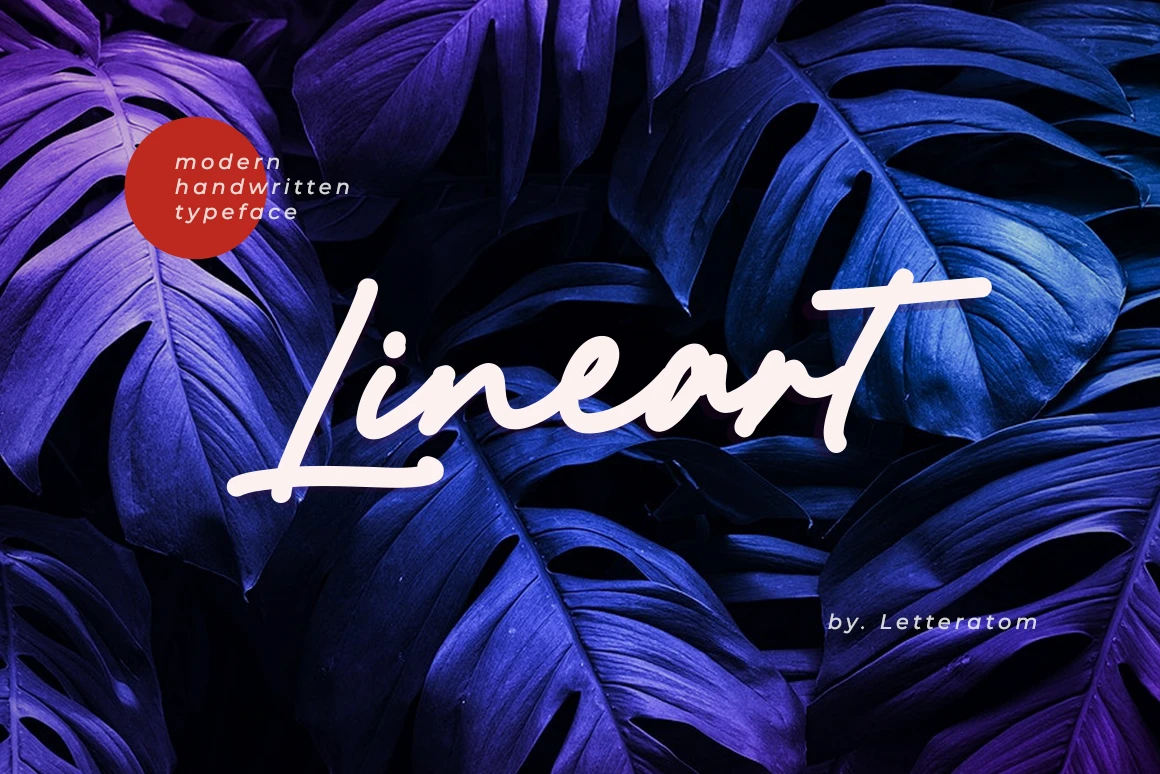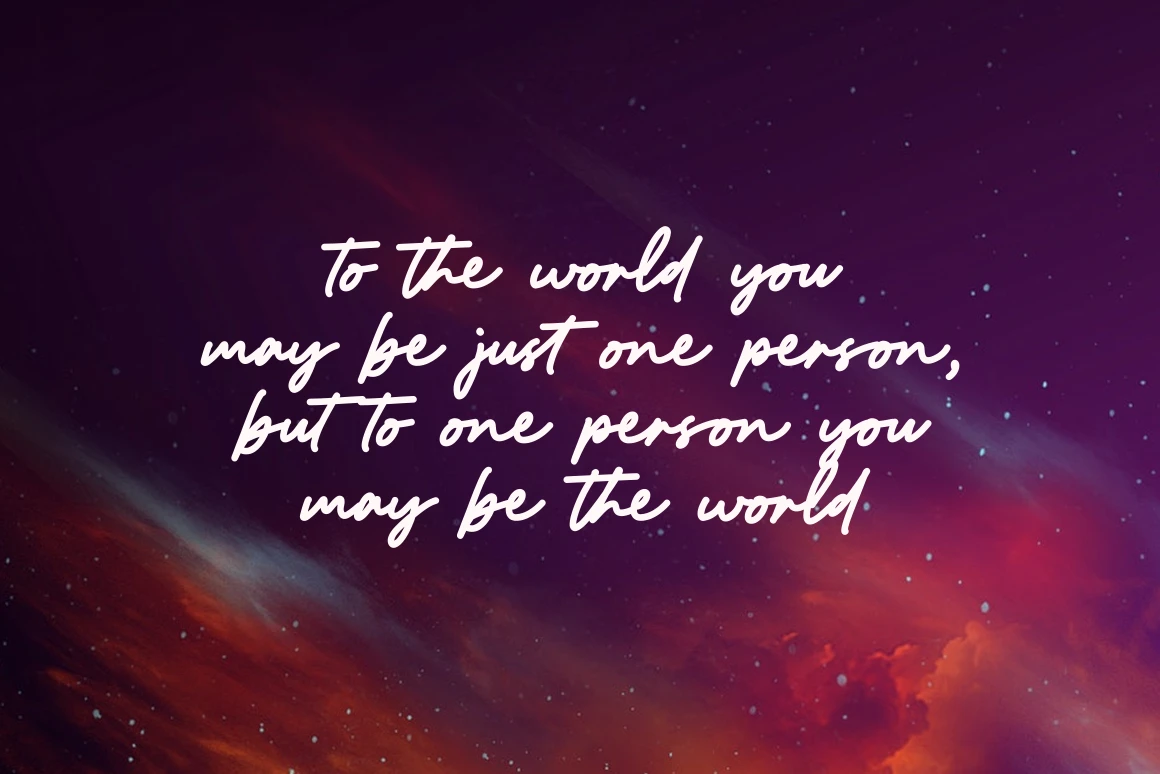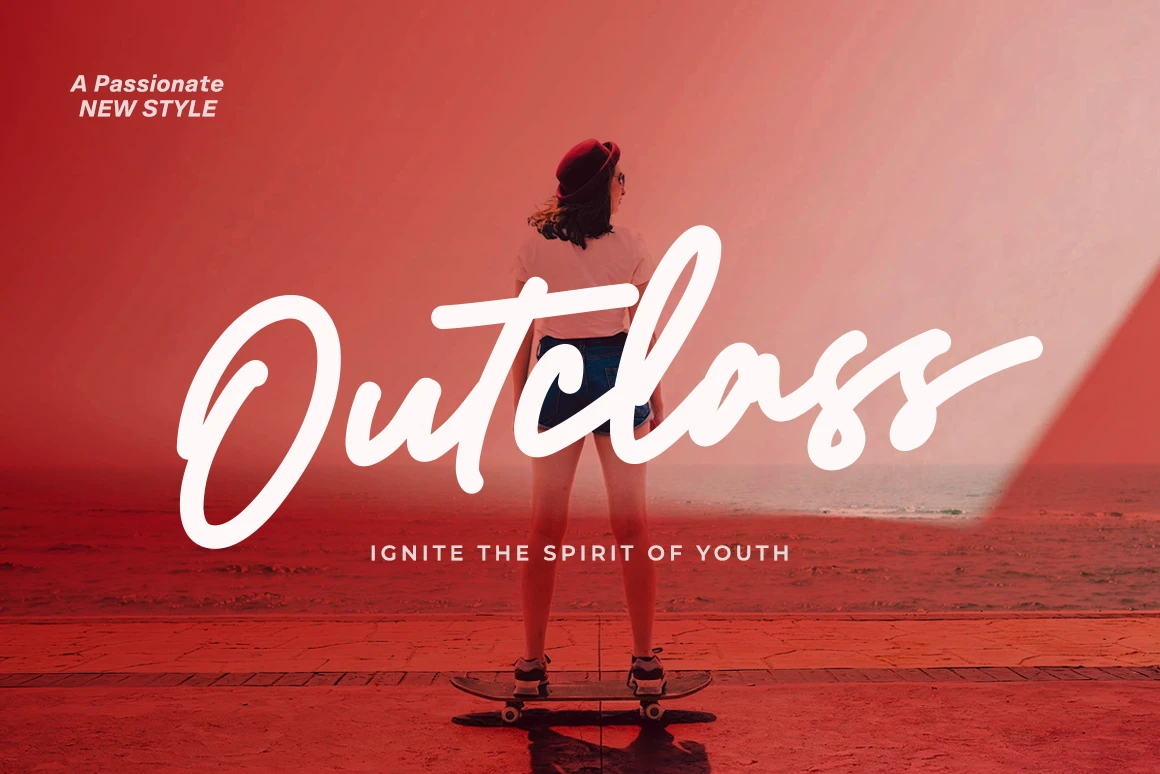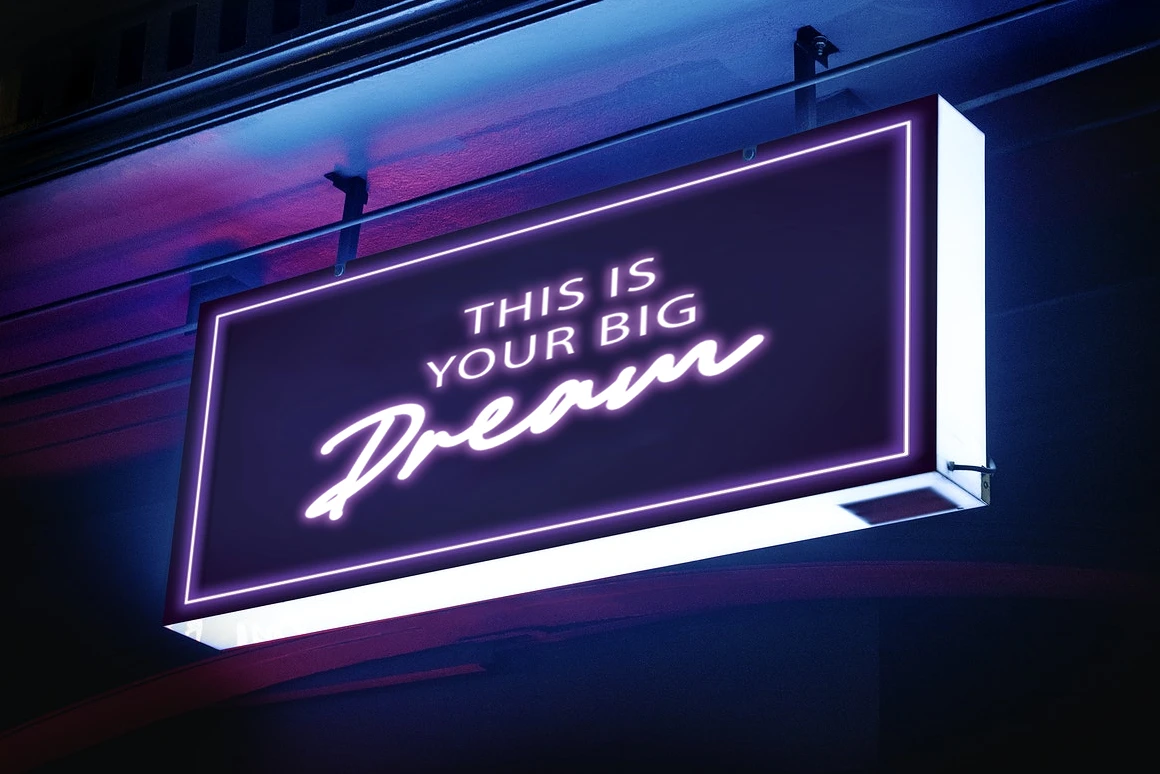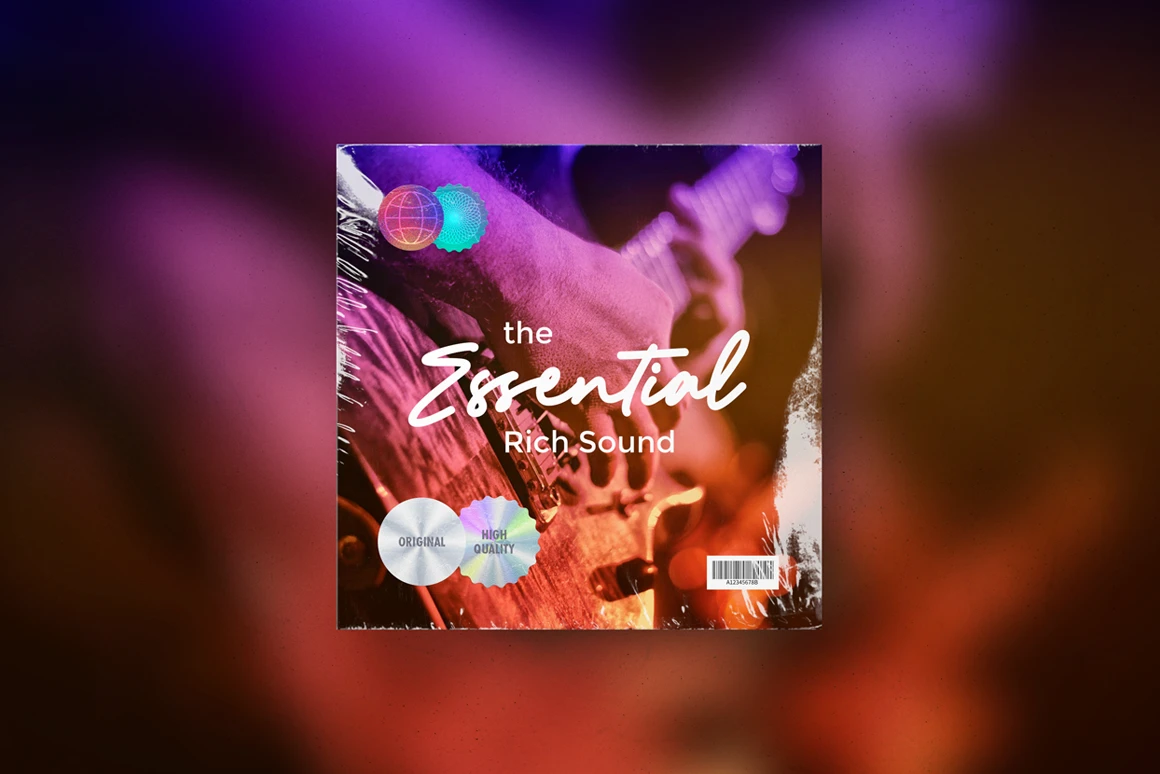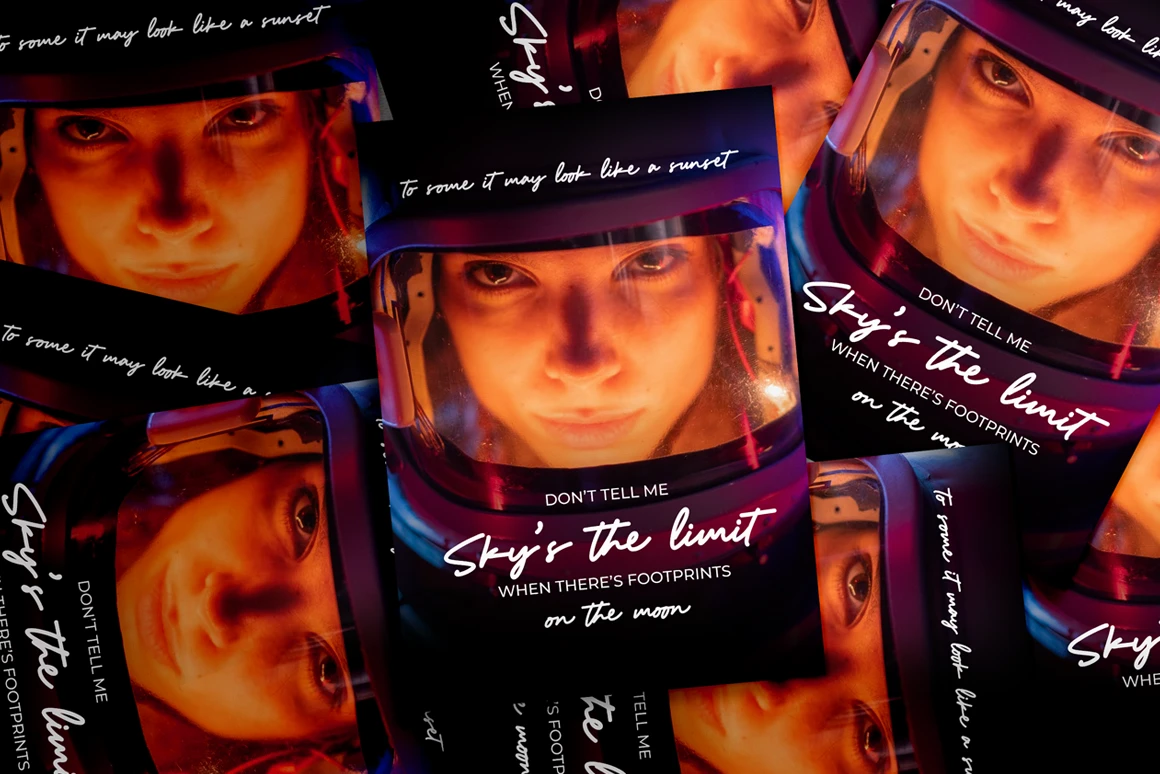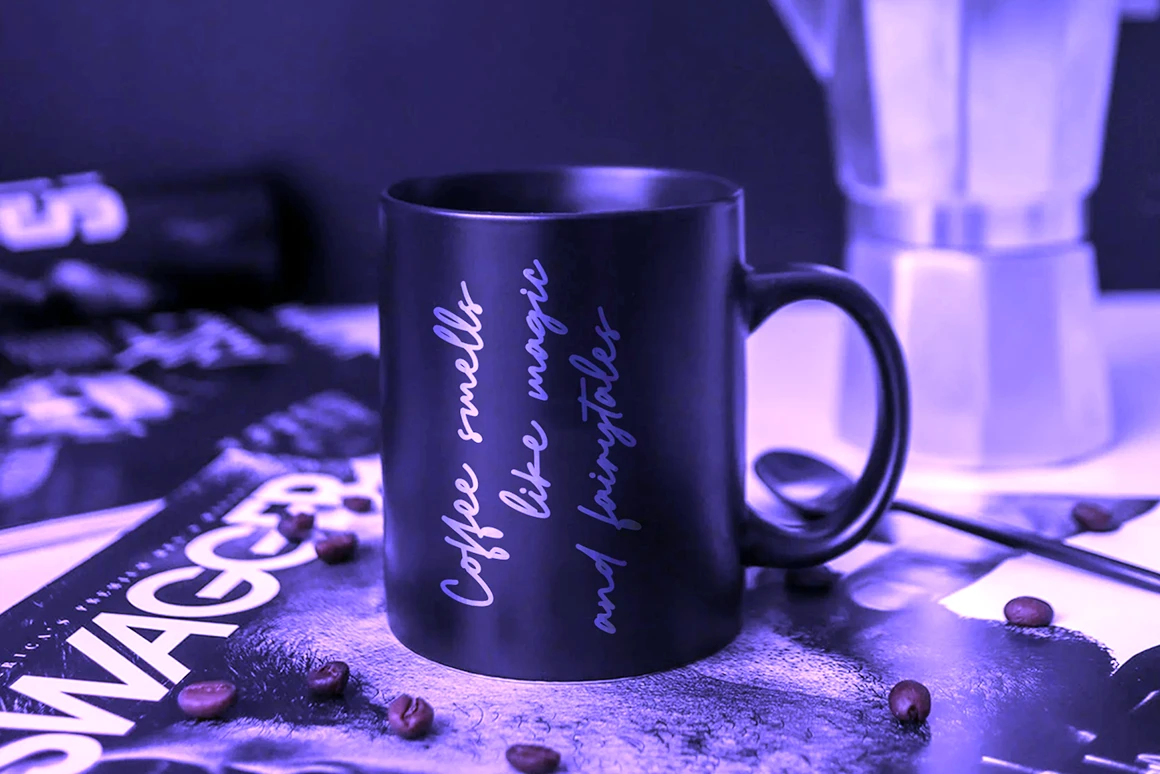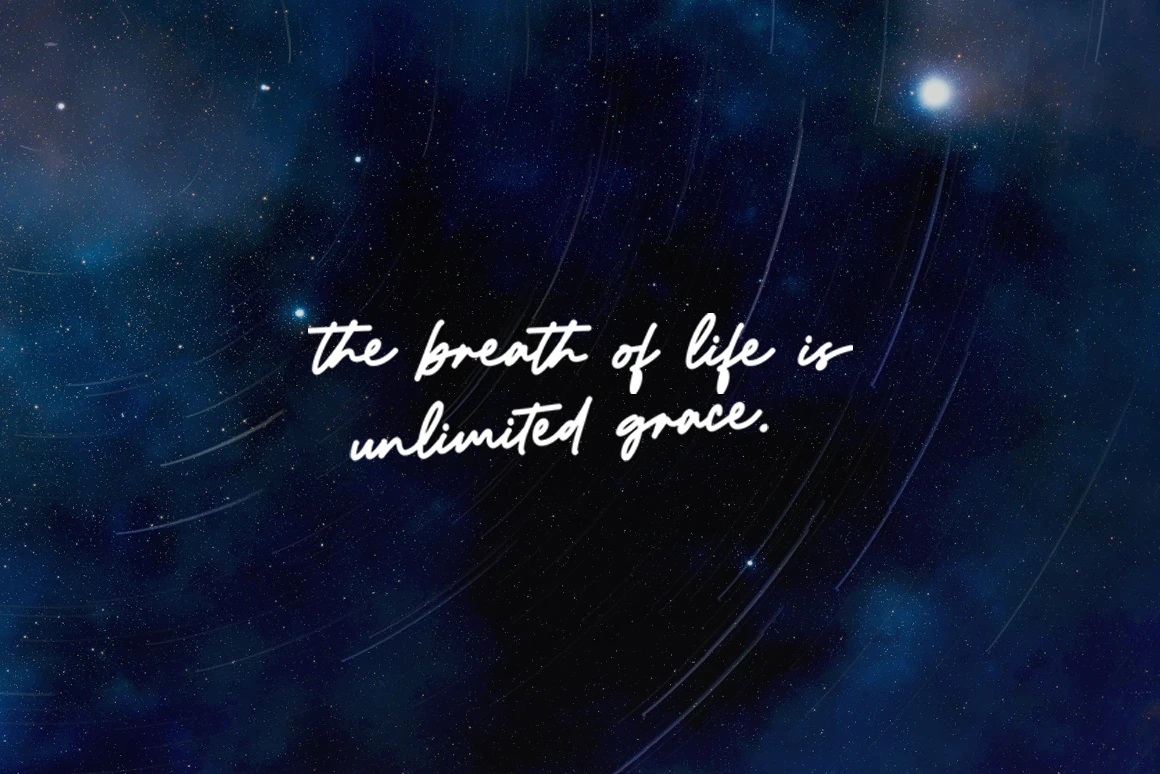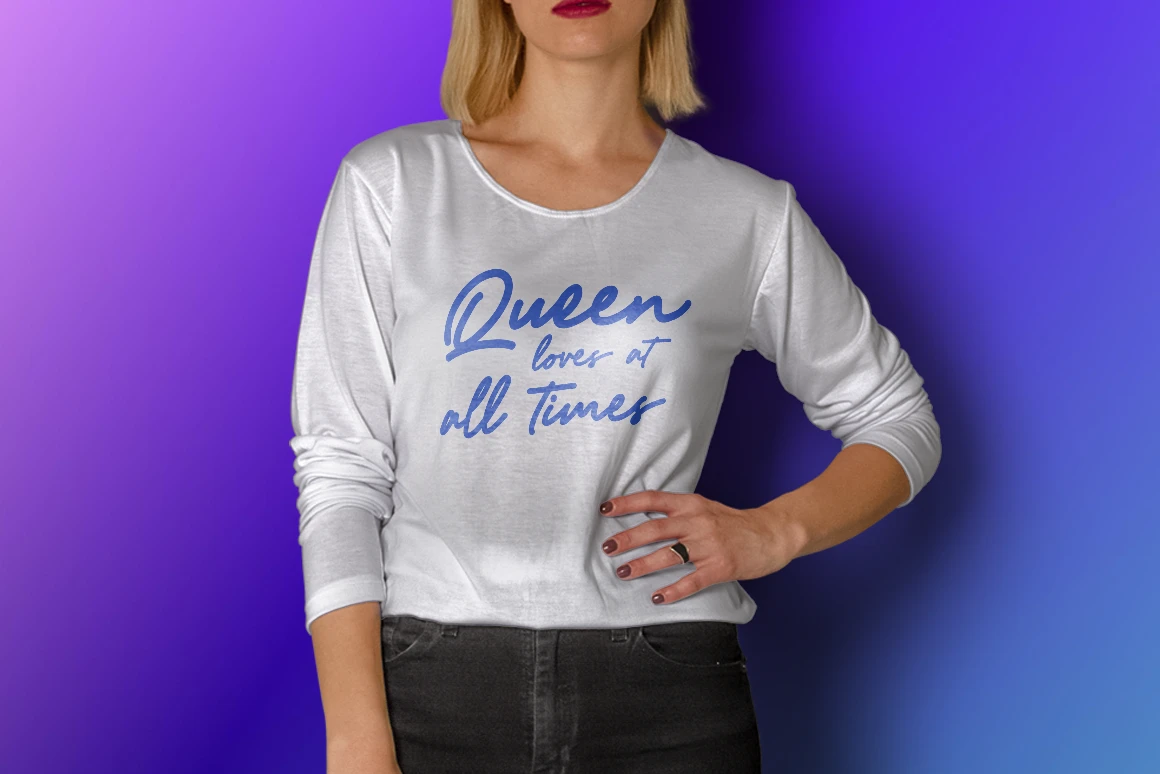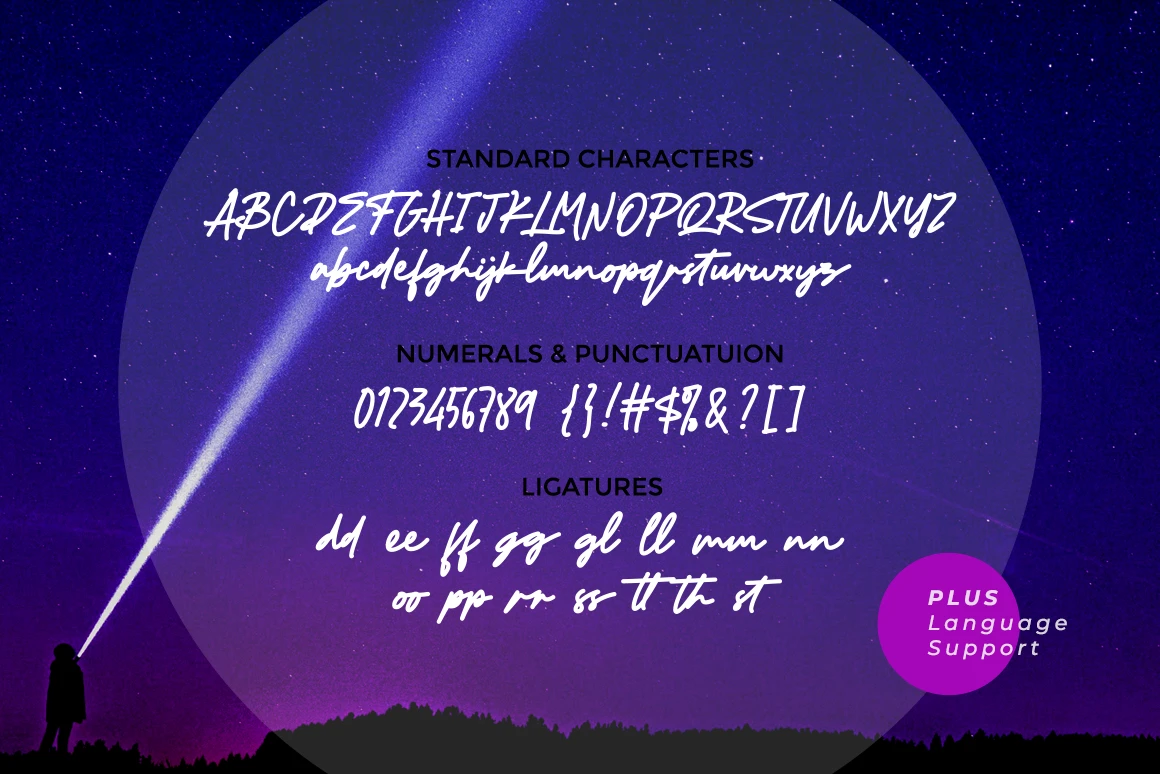
With the concept of a slightly bold monoline and a touch of fast strokes to produce a very unique modern typography. Lineart , a modern font that really stands out, will add dynamism to your design needs. It will be very dynamic when combined with serif and sans serif fonts. With Lineart, make your design look different than others!